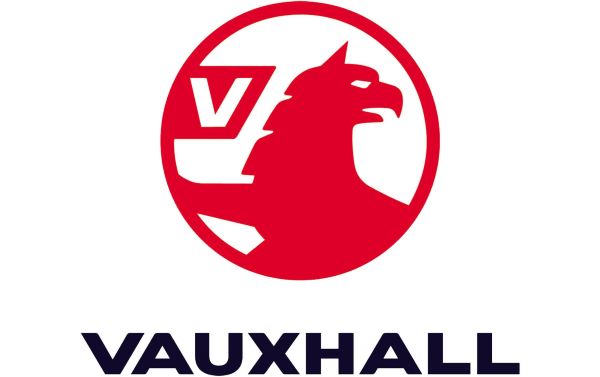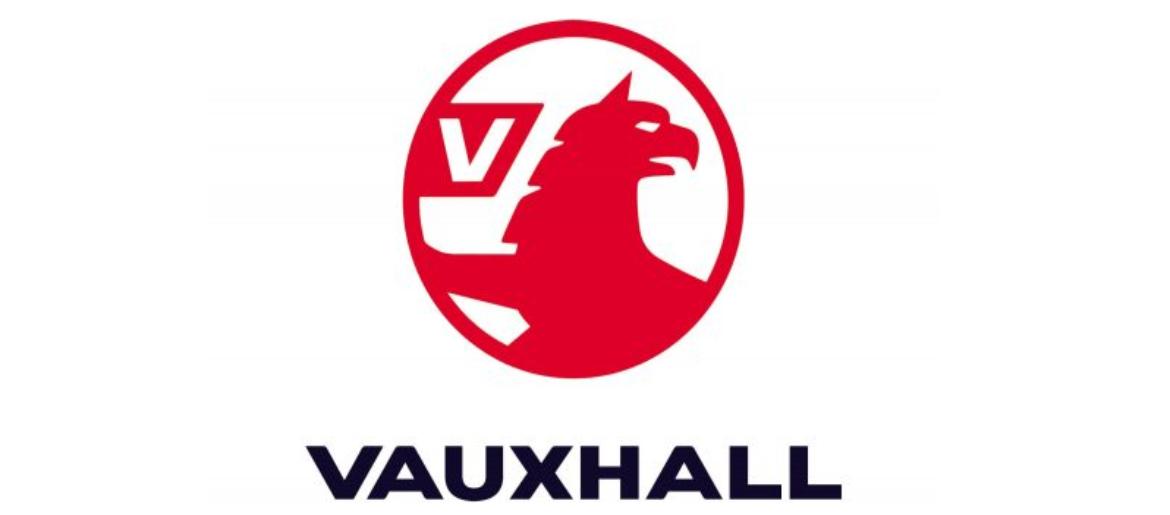
Vauxhall Font
Vauxhall font
What Font is Used in the Vauxhall Logo?
Vauxhall Font reflects the bold, confident, and modern image of the British automobile manufacturer. The original Vauxhall logo font features strong, geometric lettering that conveys reliability and heritage, perfectly aligning with the brand’s long history of craftsmanship and innovation. While the official typeface has not been publicly released, its structure shares similarities with a few modern sans-serif designs.
We found two fonts—Grand Wilson Sans and Sztos Extra Bold—that closely resemble the original Vauxhall typography. Both carry the same sturdy and refined characteristics seen in the brand’s logo. In addition, there is a free alternative font available that captures a similar aesthetic, making it ideal for creative projects inspired by Vauxhall’s visual identity.